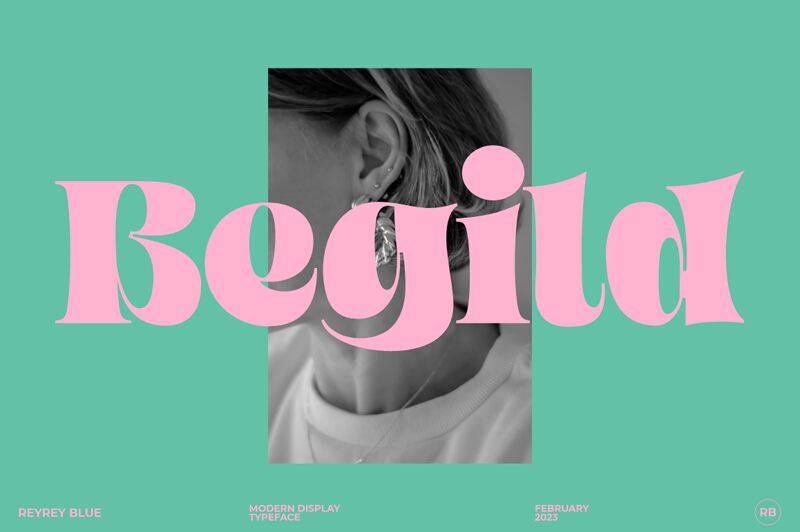
Begild font by Reyrey Blue is a groovy and bold display font with a retro-inspired, ornate design. The font’s intricate letters boast that vintage feel which cannot go unnoticed or unappreciated. The strong presence of the typeface is layered with a decorative flair that transforms each word into something unusual and beautiful.
The free font Begild has classic applications like branding, signage, and editorial covers. Physical items have an equal impact when pillows, t-shirts, blankets, or other items are envisioned in this font. Pair with other typefaces for invitations and letters while mixing them for posters or posts on social media.